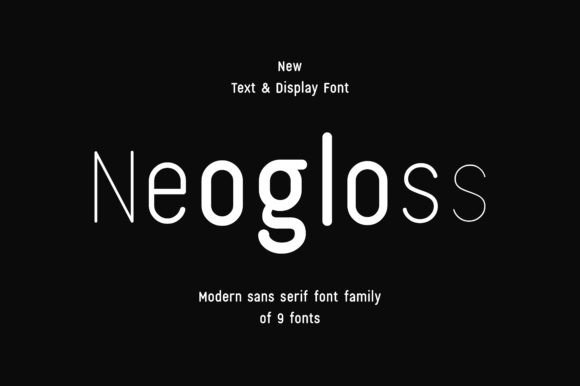
Introducing Neogloss Font, the ultimate font style for book covers that will captivate your readers from the first glance. Created by IntuisiCreative, this rounded sans serif font boasts a unique personality that will bring your designs to life.
Neogloss is not just your average font. It is a versatile tool that adds a touch of friendliness to web designs, making it perfect for creating engaging user experiences. Whether you're designing a website for a children's brand or a natural beauty product, Neogloss effortlessly infuses an organic feel into your project.
What sets Neogloss apart is its PUA encoding, which grants you access to a vast array of glyphs and swashes. With just a few clicks, you can enhance your typography and create stunning visual elements that leave a lasting impression.
Why settle for ordinary fonts when you can evoke emotions and create a connection with your audience? Neogloss Font goes beyond the mundane, allowing you to express your creativity and tell your story in a captivating way. Its rounded sans serif design adds a touch of playfulness, making it perfect for children's books or whimsical designs.
Imagine the excitement your readers will feel as they dive into a book adorned with Neogloss Font. Its captivating curves and smooth lines draw them in, immersing them in a world of imagination and wonder.